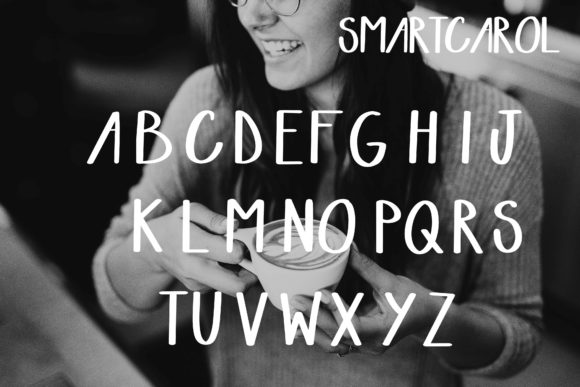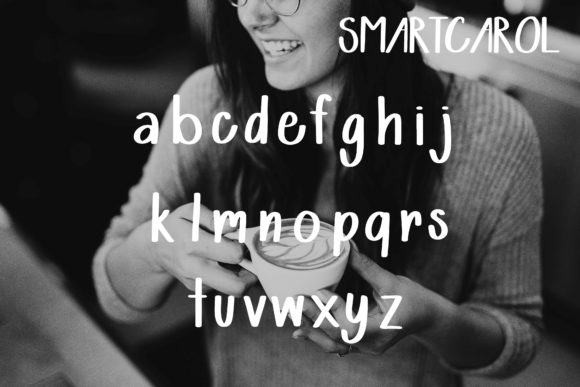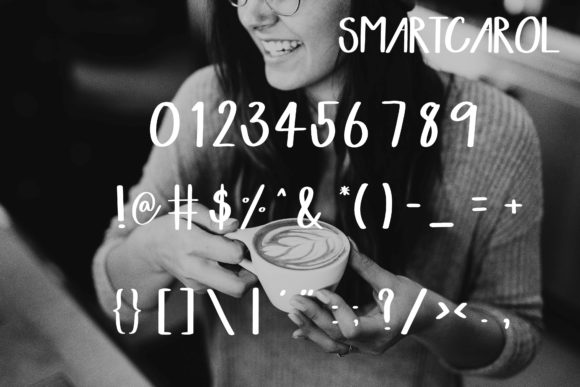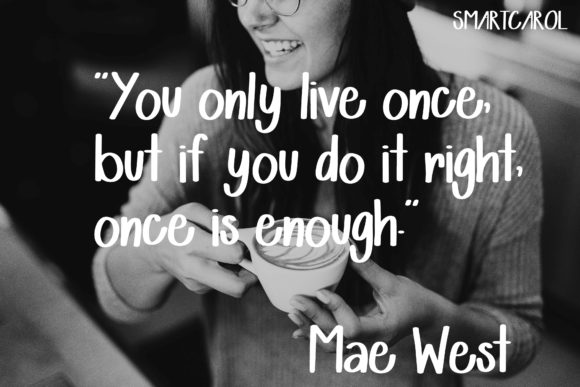
Introduction to Smartcarol Font
Do you remember that moment when you finally found the perfect design element that brought your creative project to life? For many designers, it’s a moment of pure joy and satisfaction. And today, we’re excited to share with you a treasure that will make your heart skip a beat – the beautiful Smartcarol Font. This gorgeous, handcrafted font is a true gem, carefully designed to add a touch of elegance and sophistication to any DIY project.
Whether you’re working on a personal or professional project, the Smartcarol Font is a valuable resource that will help you stand out from the crowd. With its high-quality design and transparent background, it’s the perfect addition to any design arsenal. And the best part? You can download it for free, making it an accessible and affordable design resource for creatives of all levels.
Key Features of Smartcarol Font
- High-quality, professional font design perfect for creative projects, offering a unique and elegant touch.
- Transparent background option, allowing for seamless integration with various backgrounds and designs.
- Comes in a single weight, ideal for projects where a clean and simple font is required.
- Designed with high resolution in mind, suitable for printing and digital use at 300 DPI.
- Perfect for various creative projects, including branding, packaging, and editorial design.
Honest Review: Smartcarol Font
I recently stumbled upon the Smartcarol Font and was excited to dive in and see what it had to offer. As a designer, I’m always on the lookout for high-quality fonts that can elevate my creative projects.
Here are some pros and cons of the Smartcarol Font:
- ✨ High-quality design: The font is well-crafted and visually appealing, making it perfect for various design projects.
- ✨ Transparent background: This font supports transparent backgrounds, which is a huge plus for designers who need to work with layered designs.
- ⚠️ Limited style options: The font only comes in a few styles, which might not be enough for designers who need more flexibility.
- ⚠️ Not ideal for complex typography: While the font looks great in general, it might not be the best choice for projects that require intricate typography.
Overall, I’d say the Smartcarol Font is a solid addition to any designer’s toolkit. While it may not be perfect, its high-quality design and free download make it a great resource for creative projects.
Tips for Getting the Most Out of Smartcarol Font
Use the Smartcarol Font with a transparent background to add a touch of elegance to your design. Experiment with different font sizes and styles to create a unique look. You can also pair the Smartcarol Font with other high-quality fonts to create a cohesive design.
Common Use Cases for Smartcarol Font
The Smartcarol Font is ideal for creative projects such as wedding invitations, birthday cards, and social media graphics. You can also use it for business cards, brochures, and other marketing materials. With its high-quality design, the Smartcarol Font is a valuable addition to any design resource library.